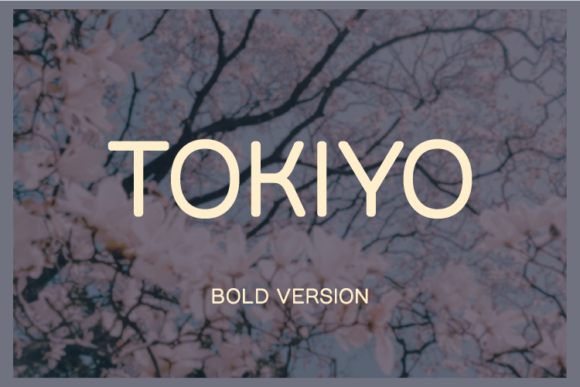
Introducing Tokiyo Bold, the captivating sans serif font that dances between the classicism of typography and the allure of Japanese aesthetics. A font that is equally exquisite and stylish, Tokiyo Bold will cast a spell of elegance over your designs, weaving a tale of sophistication with every stroke.
Under the guiding hand of A Christie, Tokiyo Bold was born, not just a font, but an emblem of innovation. It is a symphony of carefully crafted curves and lines, a seamless blend of heritage and modernity. With its intrinsic beauty, this font evokes a sense of harmony and balance, making it the ideal choice for those seeking to imbue their designs with timeless charm.
Tokiyo Bold's Japanese roots shine through in its every character. The meticulous attention to detail is evident in the delicate curves and precise angles, reminiscent of traditional Japanese calligraphy. This beautiful font harmoniously combines the old world and the new, drawing inspiration from centuries of artistry while embracing the dynamism of contemporary design.
More than merely a font, Tokiyo Bold is a versatile chameleon, effortlessly adapting to a myriad of creative endeavors. Its inherent grace makes it a perfect choice for fashion and lifestyle branding, where style and elegance are paramount. Its bold and confident strokes exude strength and authority, making it an excellent pick for corporate identities and marketing materials. Tokiyo Bold is a master of versatility, seamlessly transitioning from the digital realm of websites and blogs to the tangible world of print and packaging.
Tokiyo Bold possesses a rare and captivating charm that is sure to leave an unforgettable impression. Its timeless appeal makes it an enduring asset for designers seeking to create works of art that stand the test of time. Embrace the beauty of Tokiyo Bold and witness the transformation of your designs into captivating masterpieces. Let your creativity soar and invite this font into your design universe, crafting a legacy of elegance and sophistication.